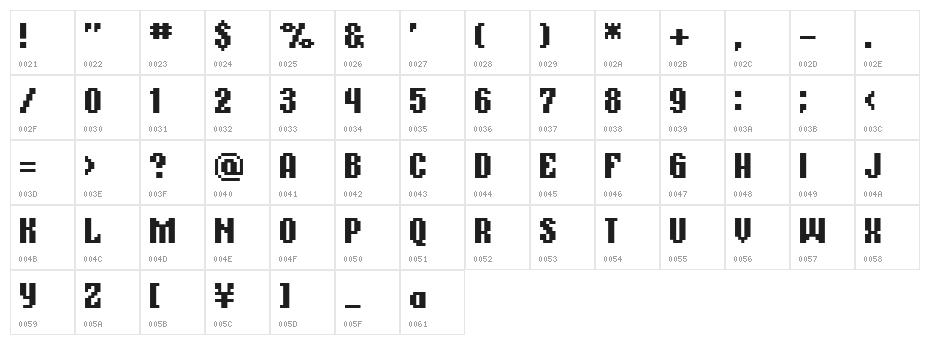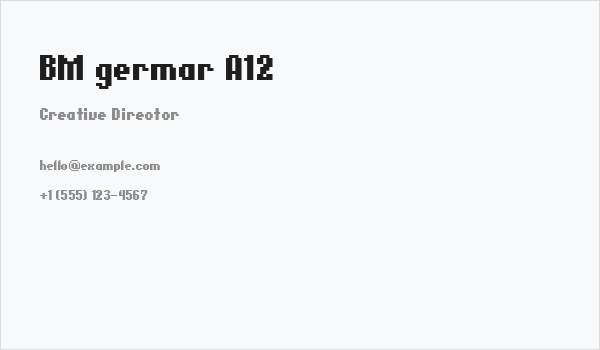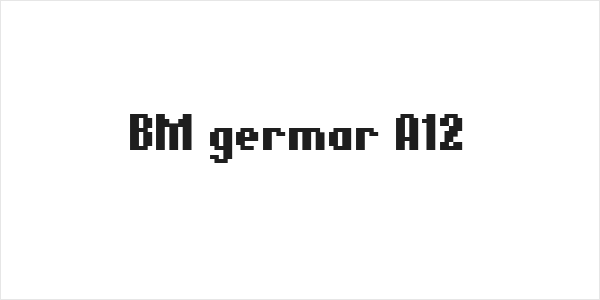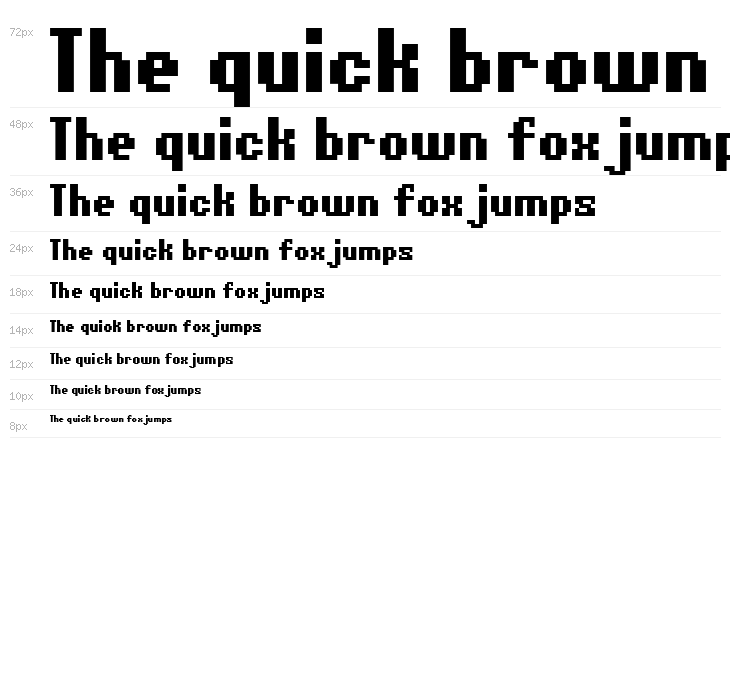
BM germar A12 Font
BM germar A12 Description
This font features a bold and blocky design with a pixelated appearance, reminiscent of early digital or video game typography. Each character is constructed with sharp, angular edges and uniform stroke widths, creating a cohesive and structured look. The uppercase and lowercase letters maintain a consistent height, contributing to a monospaced feel, although the font is not strictly monospaced. The numerals and special characters follow the same design principles, ensuring visual harmony across all glyphs. This font's retro aesthetic makes it ideal for projects that aim to evoke nostalgia or a tech-inspired theme.
| Overall Style | Retro, Digital |
| Proposed Projects | Ideal for video game design, retro-themed posters, digital art, and tech-related branding. |